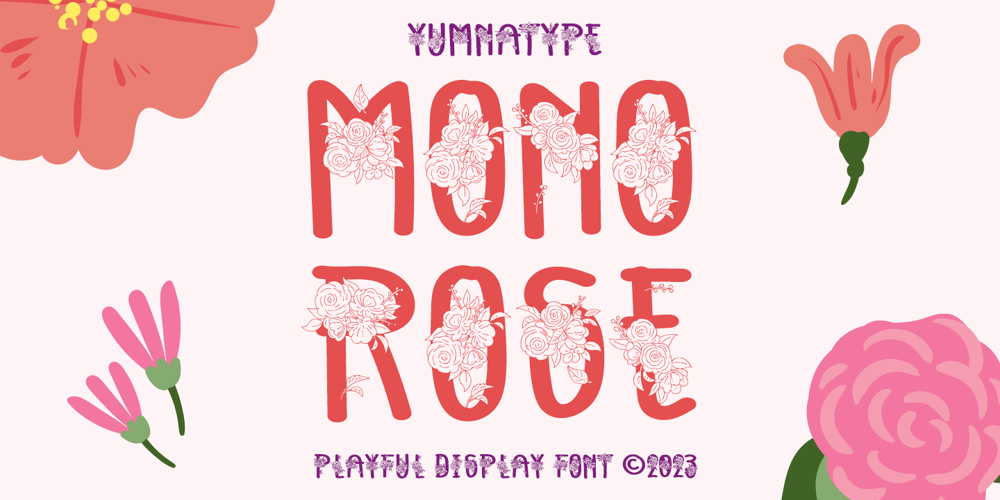
Mono Rose Font Family was designed by Donis Miftahudin and published by Yumna Type. Mono Rose contains 1 styles and family package options. Mono Rose is a visually prominent display font having unique, attractive letter designs along with rose ornaments to leave lovely, romantic impressions. All of the font letters are designed in special details and have peculiarly unique characteristics to reflect the beauty of a rose making it suitable to apply for any products expressing rose beauty and charm.Furthermore, the blunt and round font letter shapes leave soft and friendly impressions. In fact, Mono Rose is able to produce beautiful, elegant displays to its advantage and able to make your designs look more attractive, and elegant for increasing the product’s attractiveness. You can use this font for big text sizes due to its unique shapes to ease you to read it. Mono Rose provides a clipart in accordance with the font theme as a bonus and features you can enjoy.Features: Multilingual Supports PUA Encoded Numerals and Punctuations Mono Rose fits best for various design projects, such as brandings, headings, magazine covers, quotes, printed products, merchandise, social media, etc. Find out more ways to use this font by taking a look at the font preview.Thanks for purchasing our fonts. Hopefully, you have a great time using our font. Feel free to contact us anytime for further information or when you have trouble with the font. Thanks a lot and happy designing.